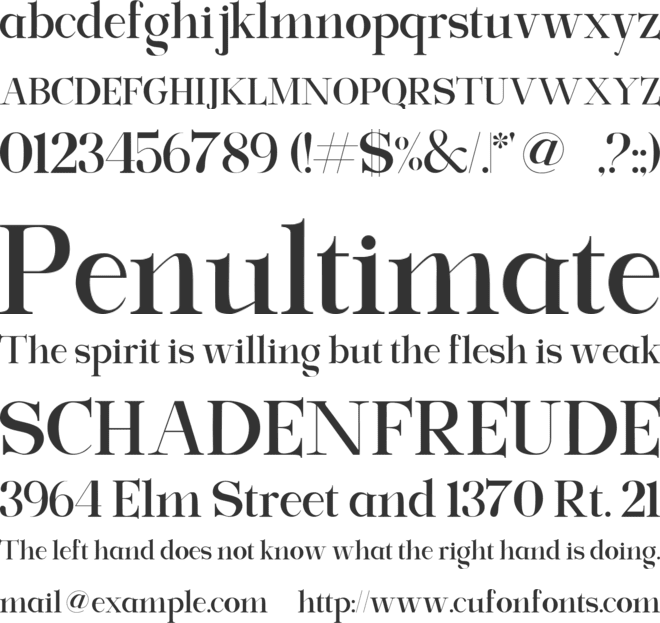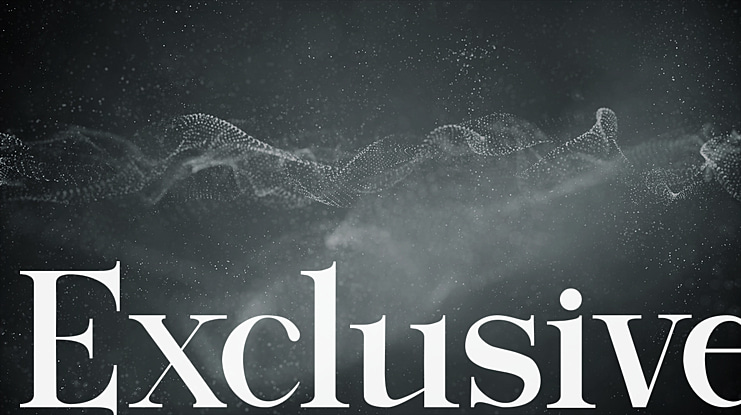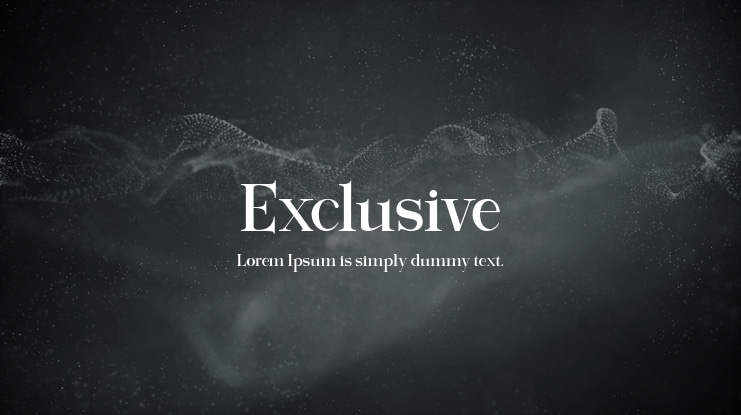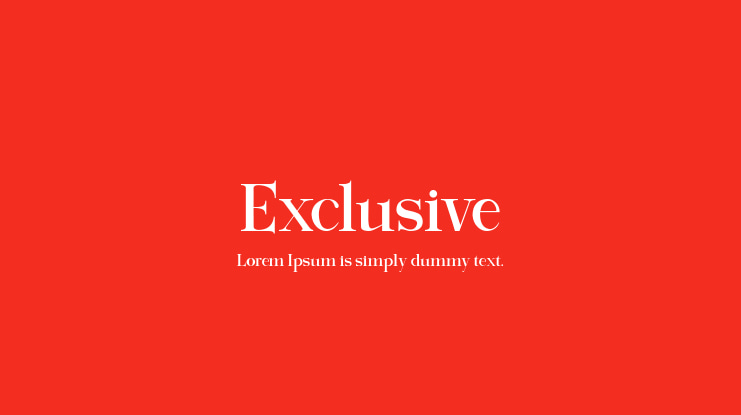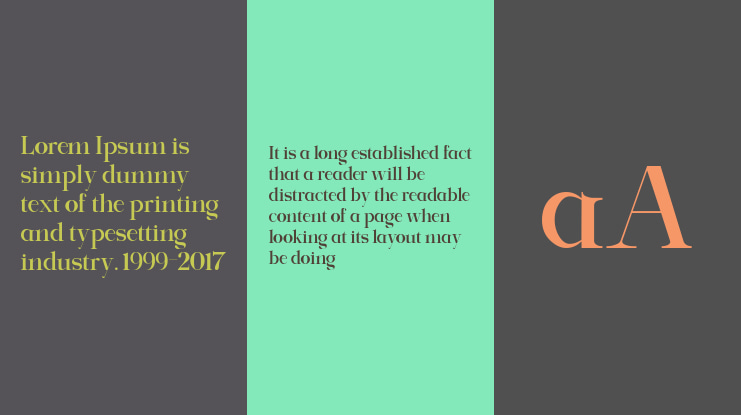
Exclusive Font
Exclusive Serif is an elegant and stylish serif font. It looks beautiful on a variety of designs requiring a personalized style, such as wedding invitations, thank you cards, weddings, greeting cards, logos and so on.